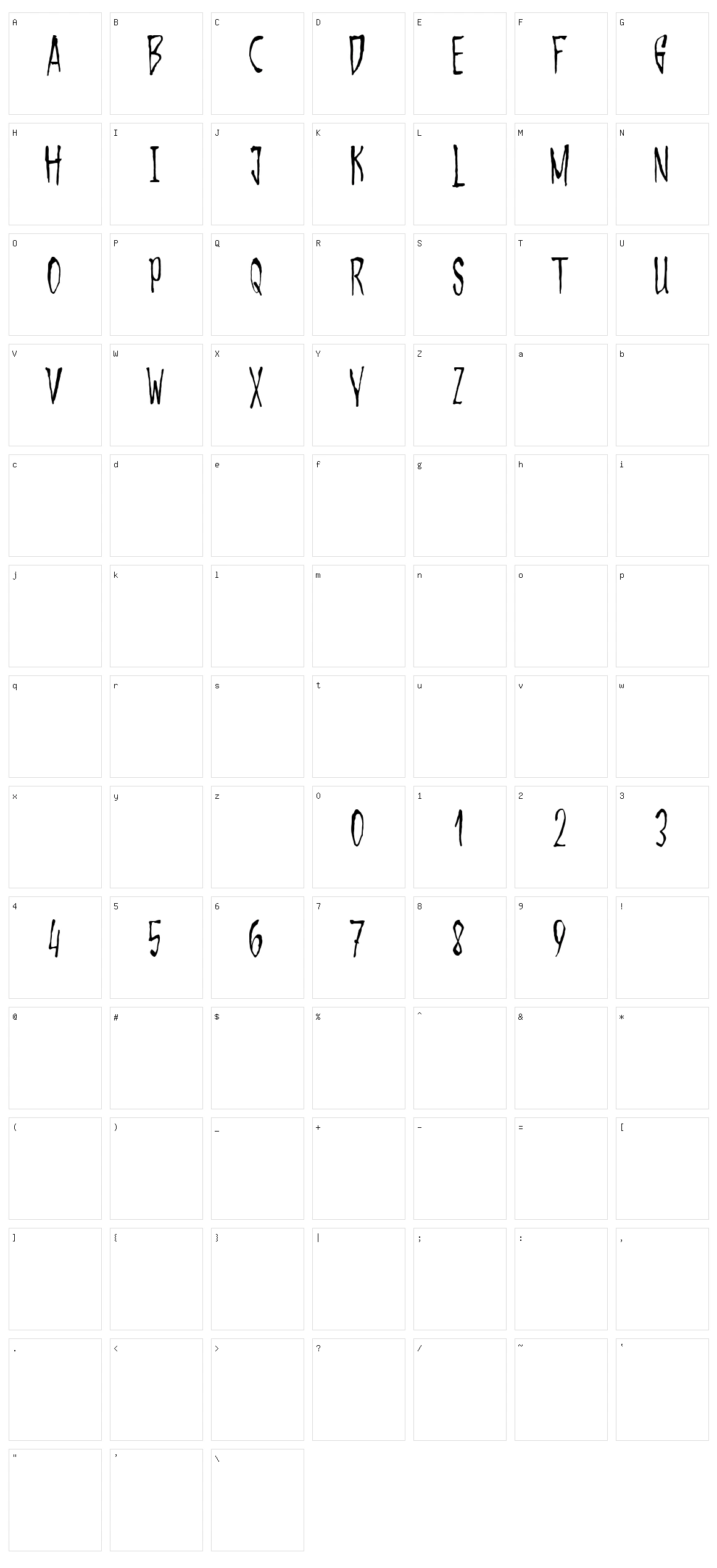
The free font Uncut Madness is carefully designed by Mirco Zett, showcasing a thoughtful balance of creativity and usability and falls under the Horror font style. When you download the ZIP file, it contains only 30.09 KB of font files, making it lightweight and quick to download. Please review the license details below to understand permitted usage and distribution rights. If license information is not available, we recommend using this font for personal projects only or contacting the author directly for commercial usage permissions.